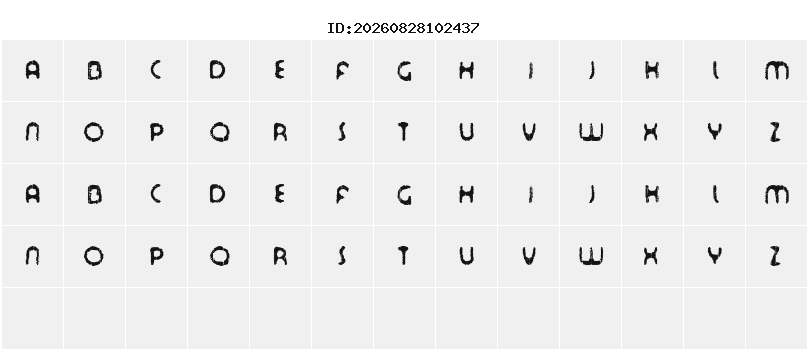
• Font Name: Tour de Font
• Font ID: Tour de Font
• Full Font Name: Tour de Font
• Version: version 2.0, 6th September 2000
• PostScript Name: TourdeFont
• Character Count: 252
About Tour de Font.ttf
Tour de Font.ttf is a modern, elegant sans-serif font designed for ultimate readability and visual harmony. Perfect for branding, headlines, web design, and print materials.